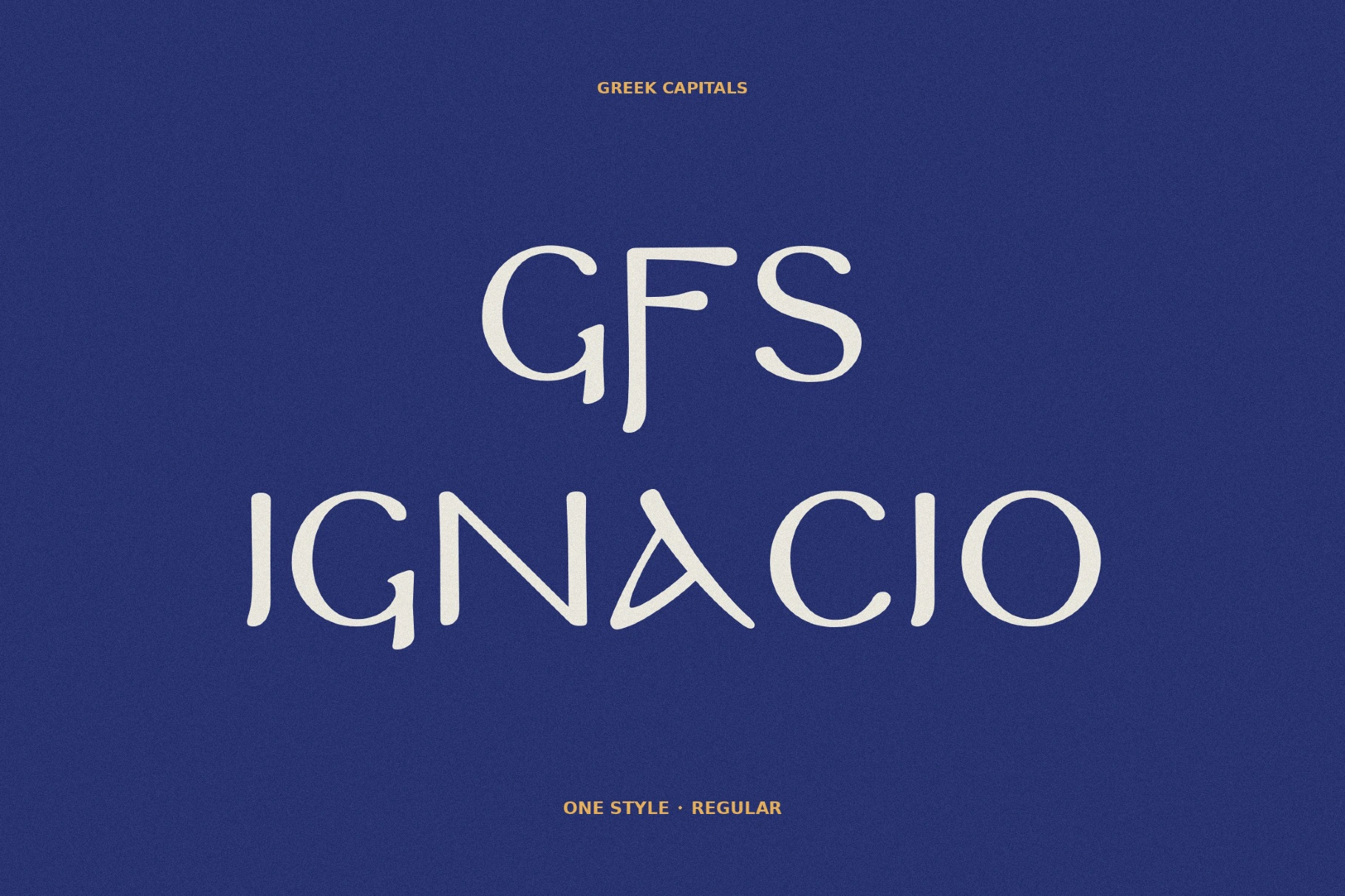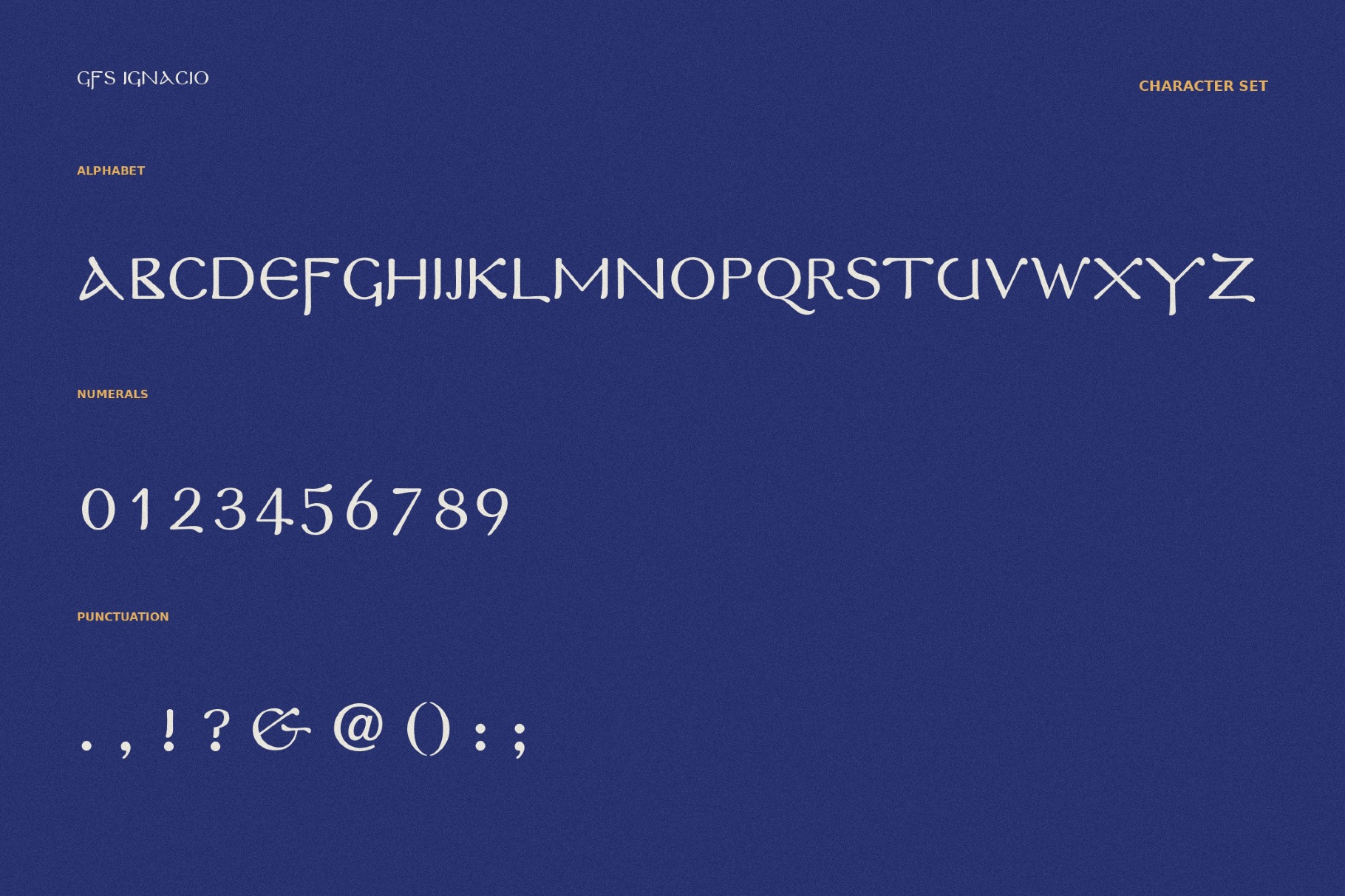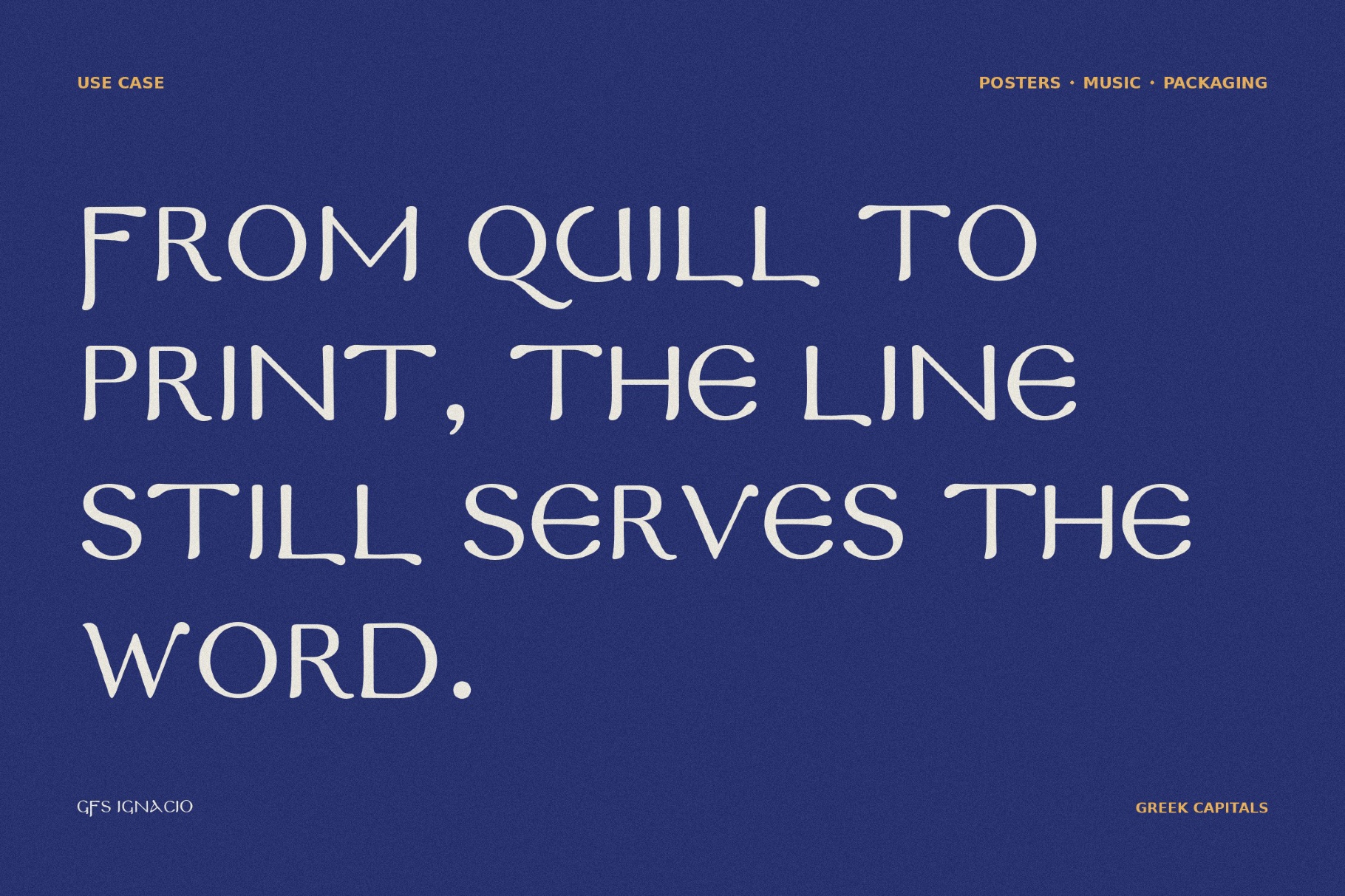
GFS Ignacio - Ancient Greek Font
Slender capitals with carved-looking cuts make GFS Ignacio look like it was taken from an archaeological poster. Its classical proportions and rune-like incisions suggest Byzantine stone text, Greek epigraphy, and early twentieth-century travel graphics.
The refined antique rhythm is a natural fit for museum identities, academic covers, cultural festival posters, exhibition titles, wine labels, travel branding, editorial layouts, gallery materials, and packaging.
- uppercase letters;
- numbers, punctuation, and symbols;
- multilingual support across extended Latin and Greek scripts.